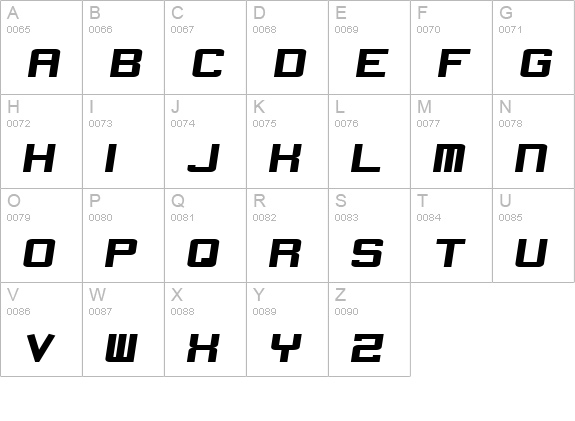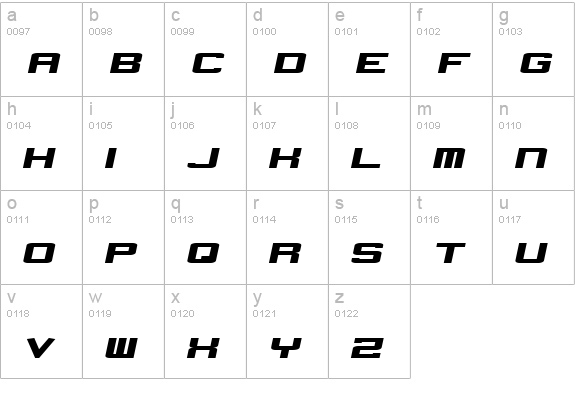
NeverSayDie font is a bold and expressive typeface that exudes confidence and creativity. With its strong lines and edgy design, this font is perfect for making a statement in your projects. Whether you're designing a poster, logo, or website, NeverSayDie font will grab attention and leave a lasting impression. The best part? NeverSayDie font is available for free download at FontsMarket.com. You can easily add this dynamic font to your collection and use it in a wide range of design projects without any cost. Don't miss out on the opportunity to elevate your designs with the striking and powerful NeverSayDie font – download it today and let your creativity shine!